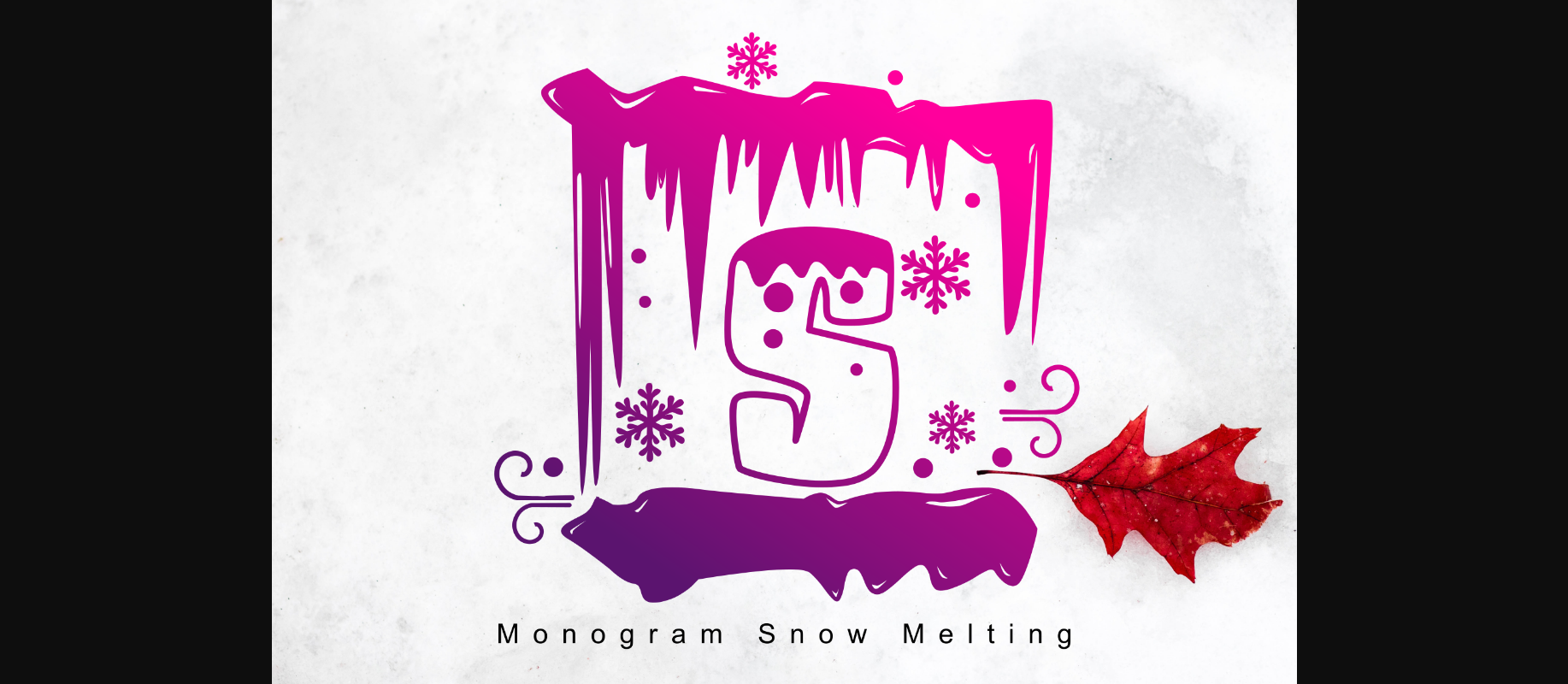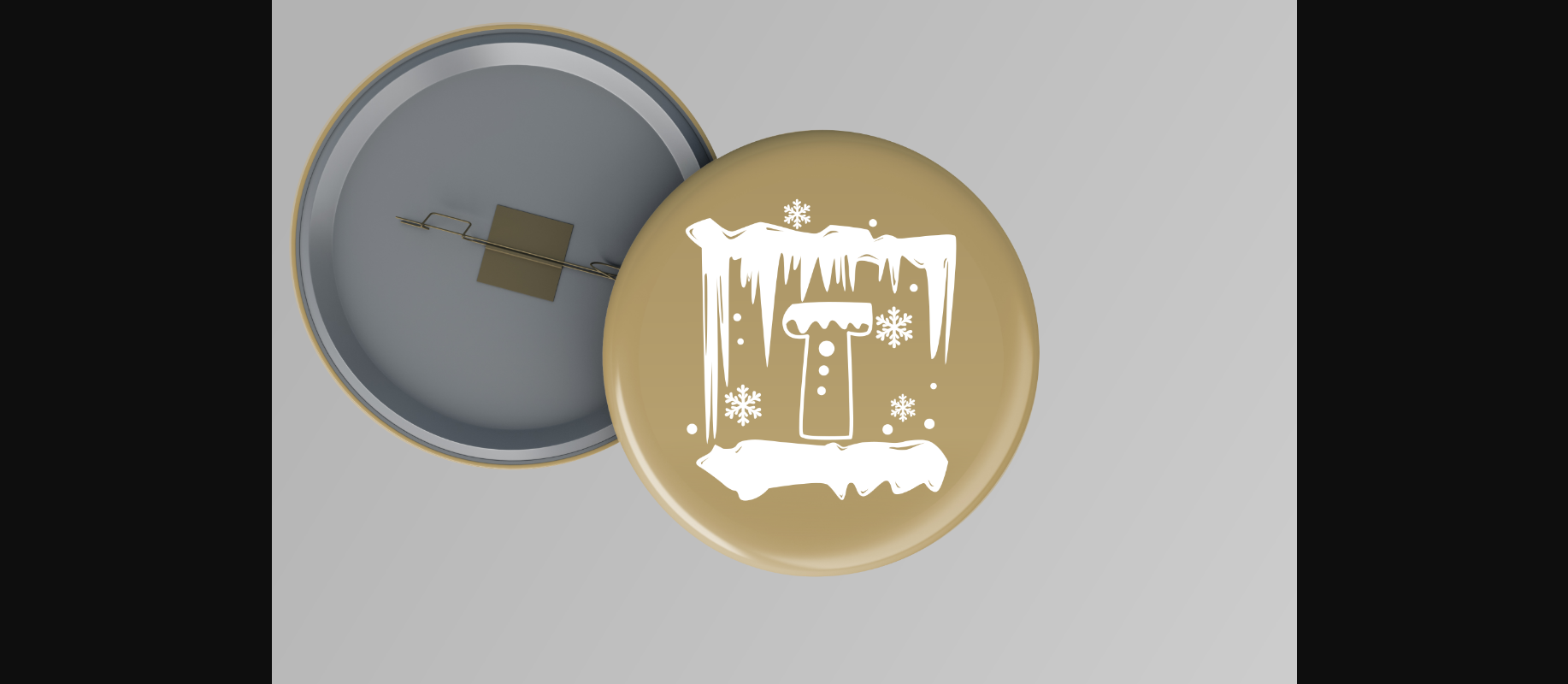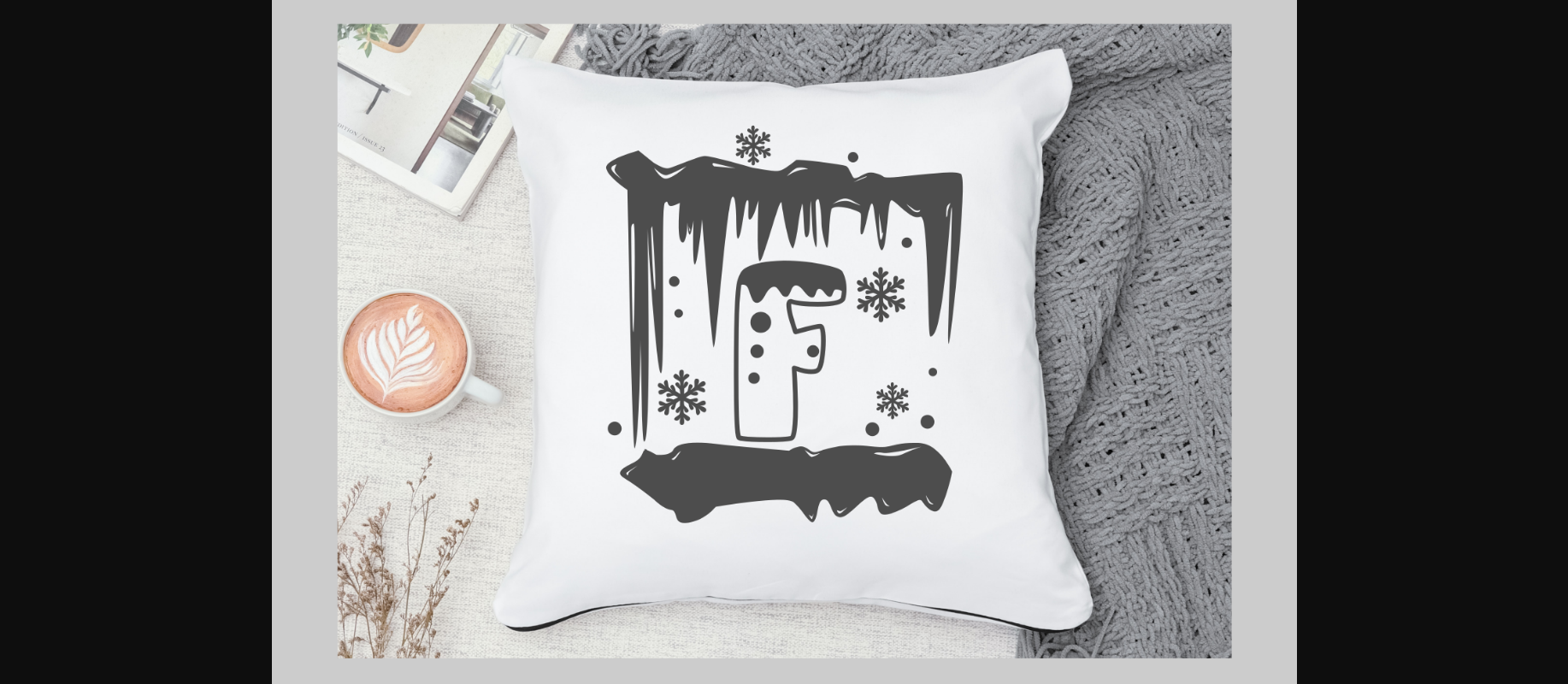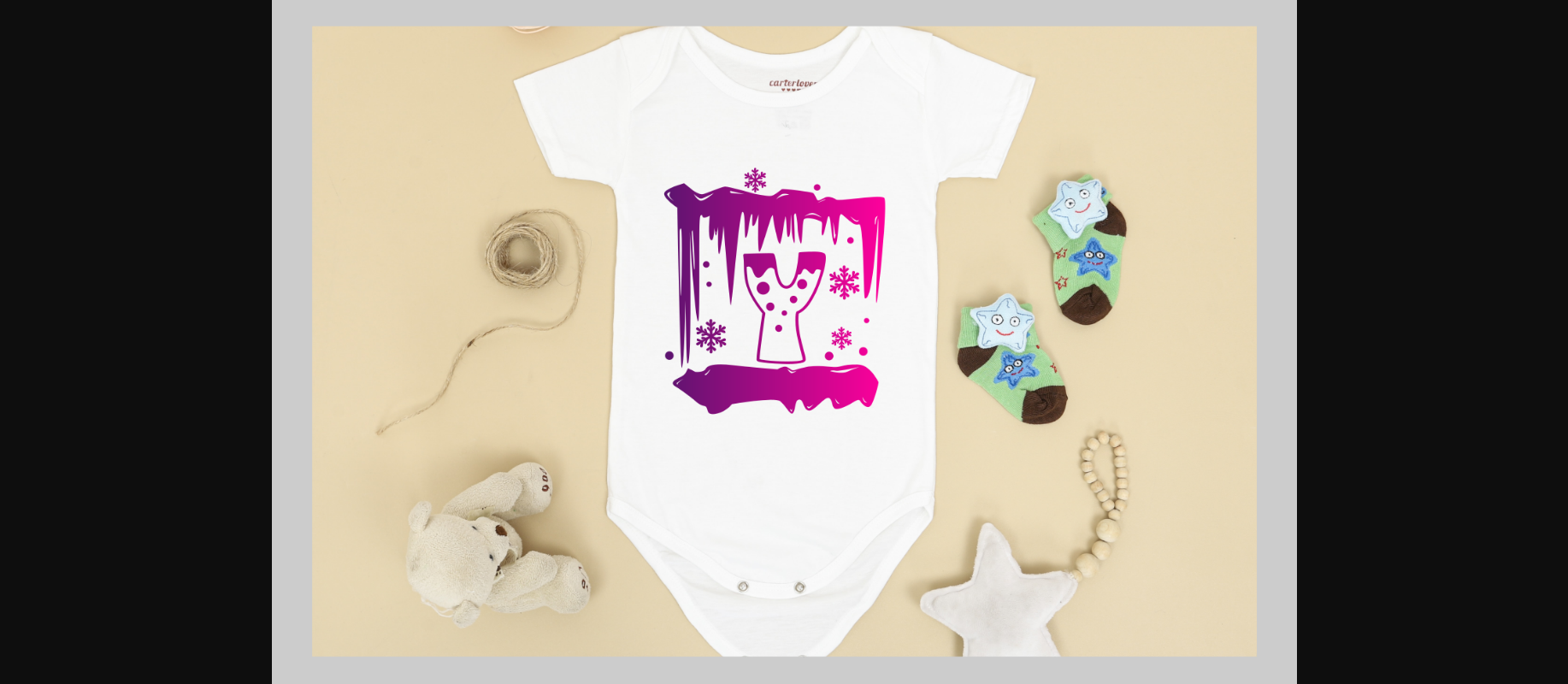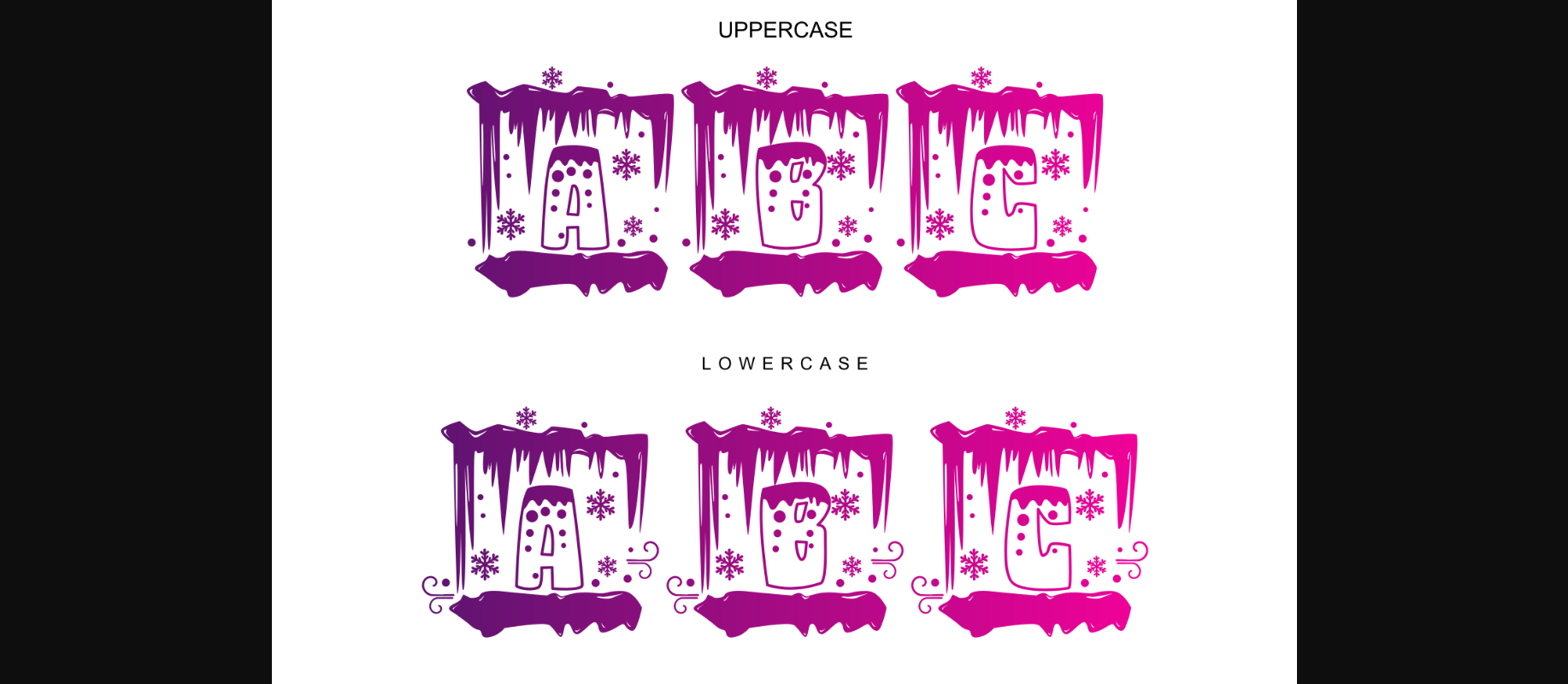
HomeDecorative FontsMonogram Snow Melting Font Decorative Fonts Monogram Snow Melting Font FacebookXPinterestWhatsApp 1 of 7 ... Monogram Snow Melting Font Poster 2... Monogram Snow Melting Font Poster 3... Monogram Snow Melting Font Poster 4... Monogram Snow Melting Font Poster 5... Monogram Snow Melting Font Poster 6... Monogram Snow Melting Font Poster 7... About Monogram Snow Melting Font Monogram Snow Melting is a highly detailed and sweet decorative font. Add this quirky-looking font to each of your children projects or favorite design ideas, and you will be astounded by the outcome. DOWNLOAD NOW People also explored Pororo Font Strong Bold Font Rockesta Font Menttion Script Font Rigel Font Ntorq Font Super Stacked Font Mantis! Font Mitha Mella Font 393 0 TagsMonogram Snow Melting Font Previous articleSpooky Monogram FontNext articleSnow White Font LEAVE A REPLY Cancel reply Comment: Please enter your comment! Name:* Please enter your name here Email:* You have entered an incorrect email address! Please enter your email address here Website: Save my name, email, and website in this browser for the next time I comment. Personal Use Free Kitsor Rauttie Personal Use Free Read more about this font Lovely Girl Personal Use Free Read more about this font Ashay Personal Use Free Read more about this font Recharge Bold Personal Use Free Read more about this font BLOG Fonts That Capture the Spirit of New York City New York City is more than just a place—it’s an experience, a rhythm, a visual language... To increase your work productivity, choose the most readable fonts. Free Fonts Risk: Why Free Fonts Can Be Dangerous for Designers Best Fonts for YouTube Videos: Make Your Thumbnails Stand Out